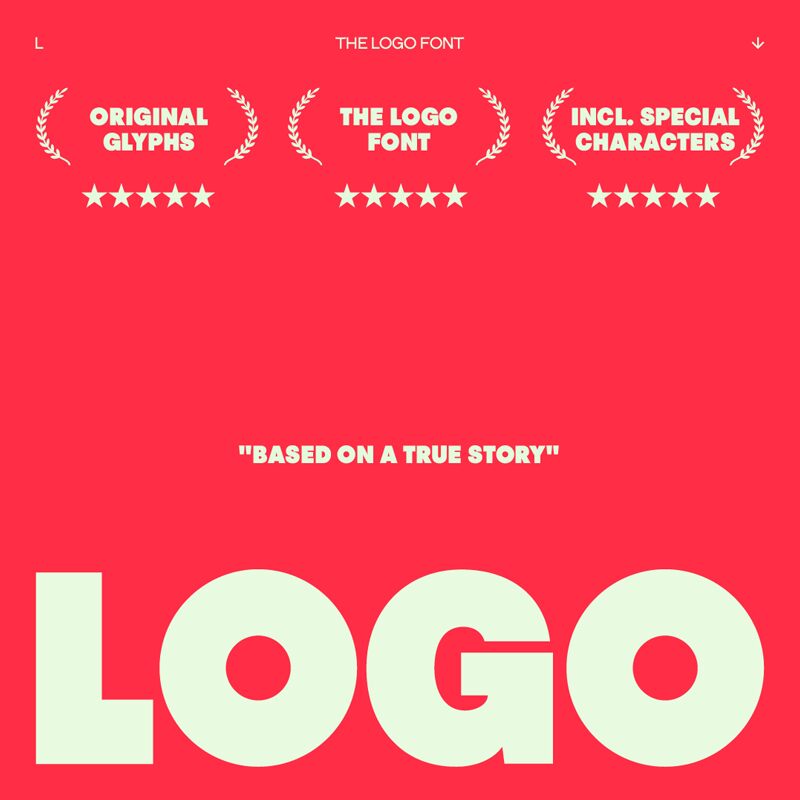
The Logo Font by Sven Pels is a geometric sans serif font designed to bring the modern minimalist style to your every typographic project. The typeface brings an impactful feel to the readers while ensuring high contrast, clarity, and strong presence, qualities that every great font should have. Each character is designed carefully to complete its geometric essence along with its readability.